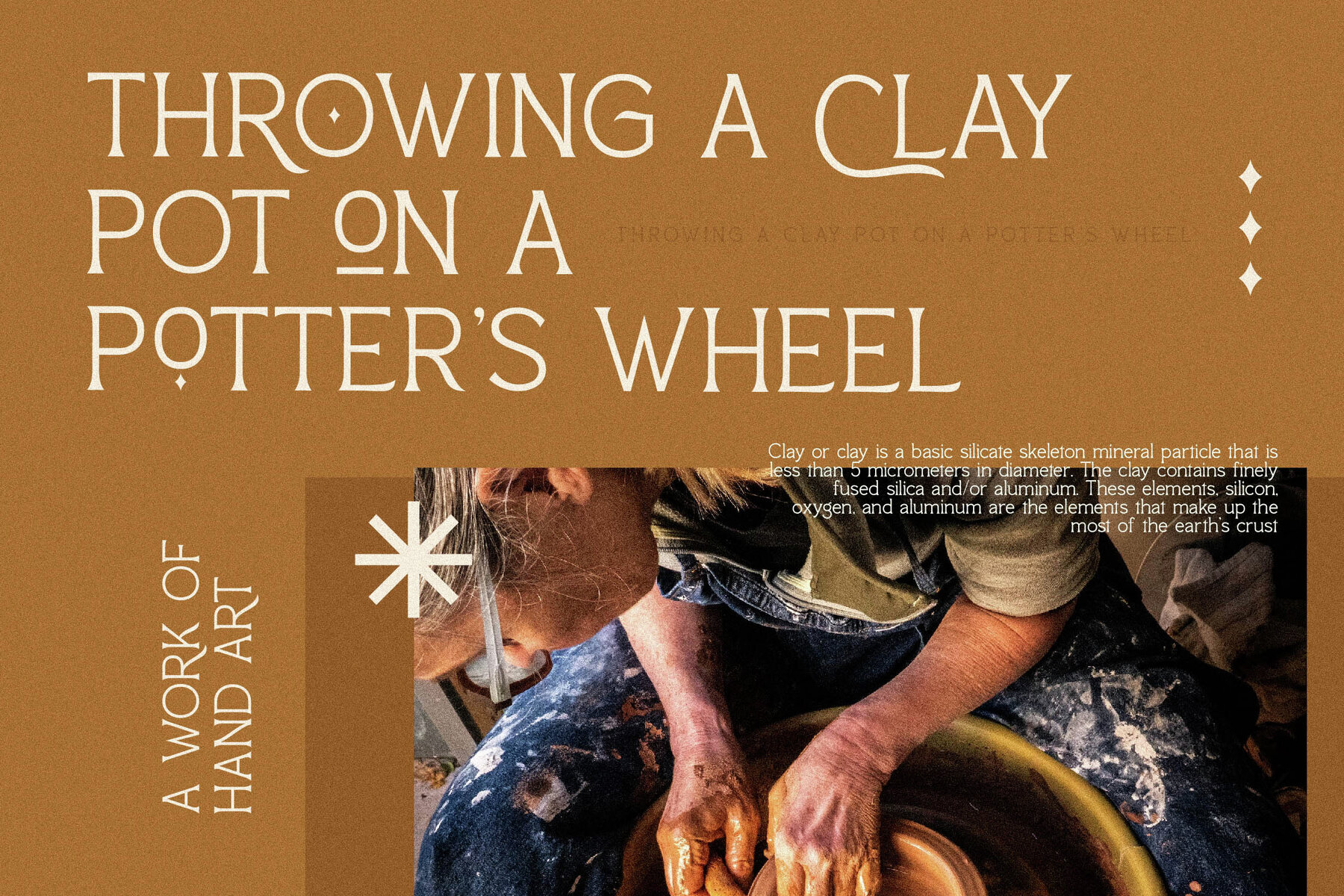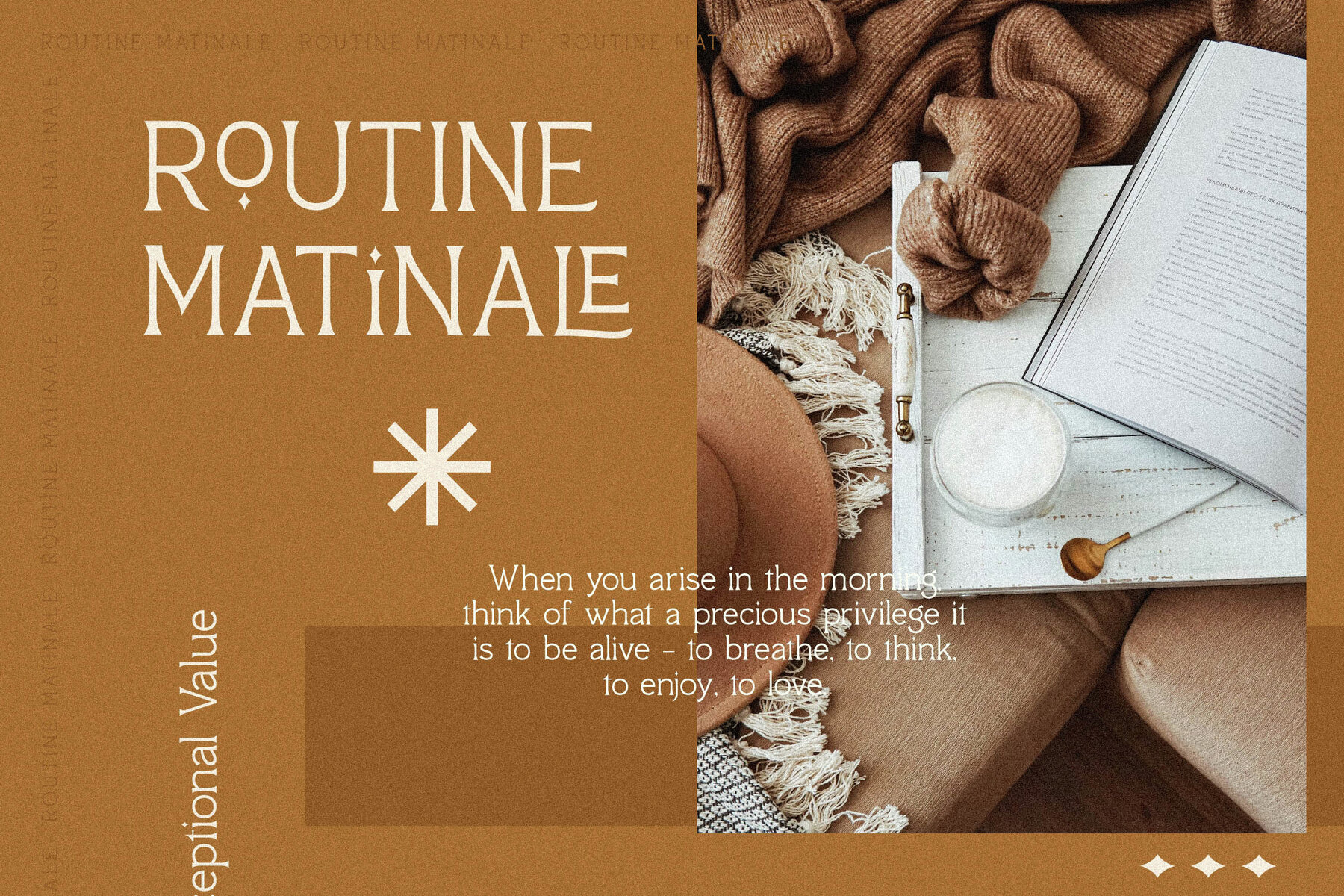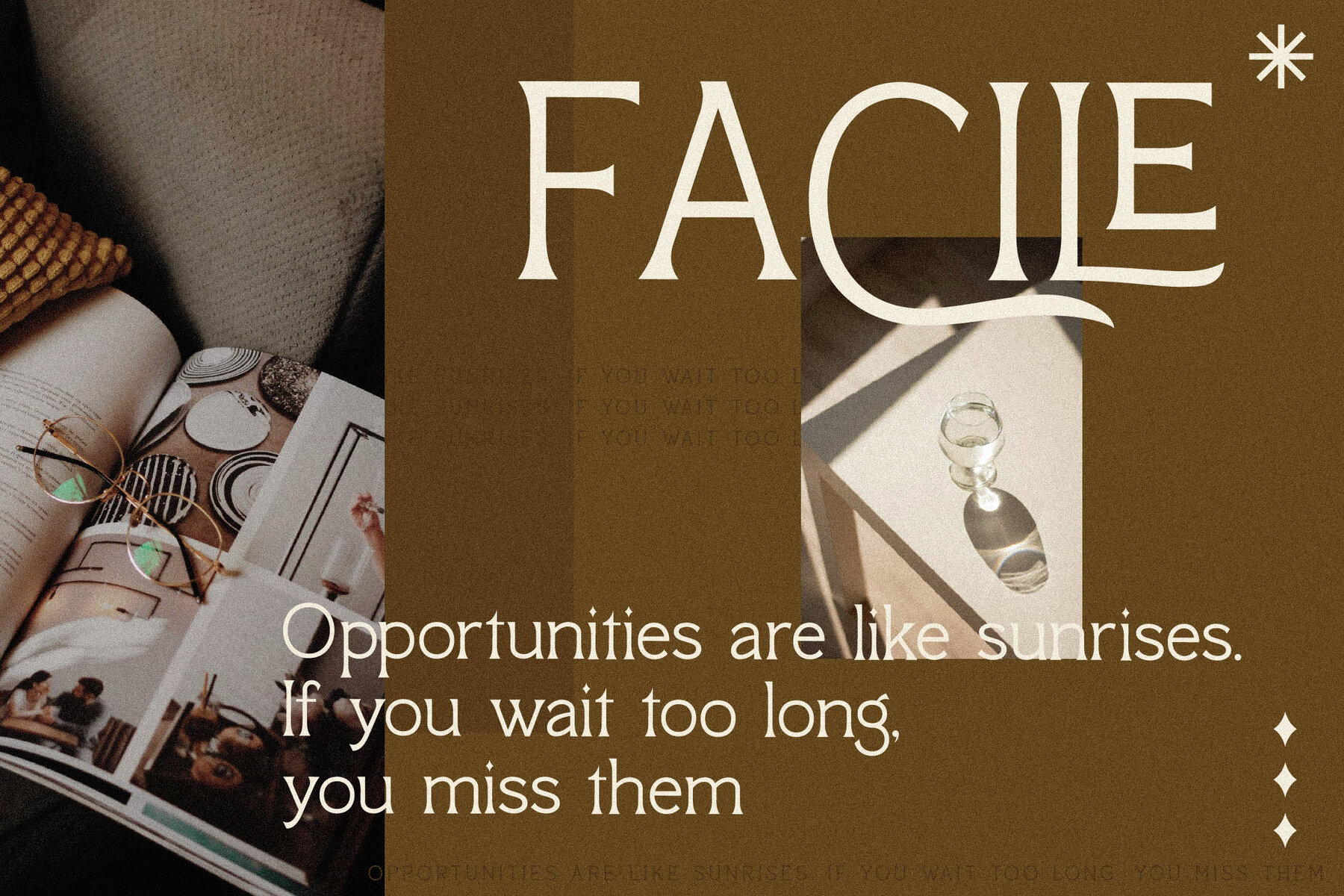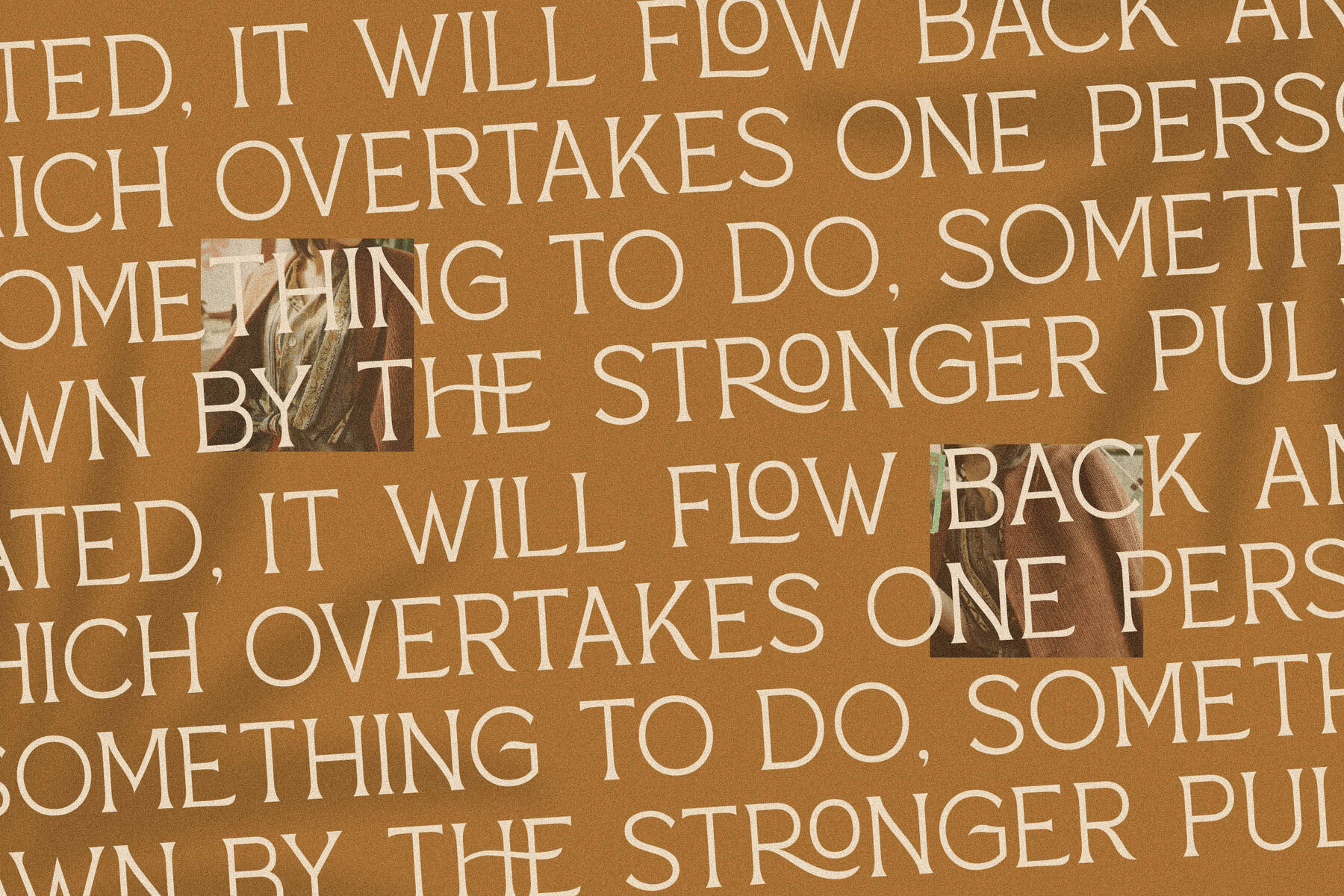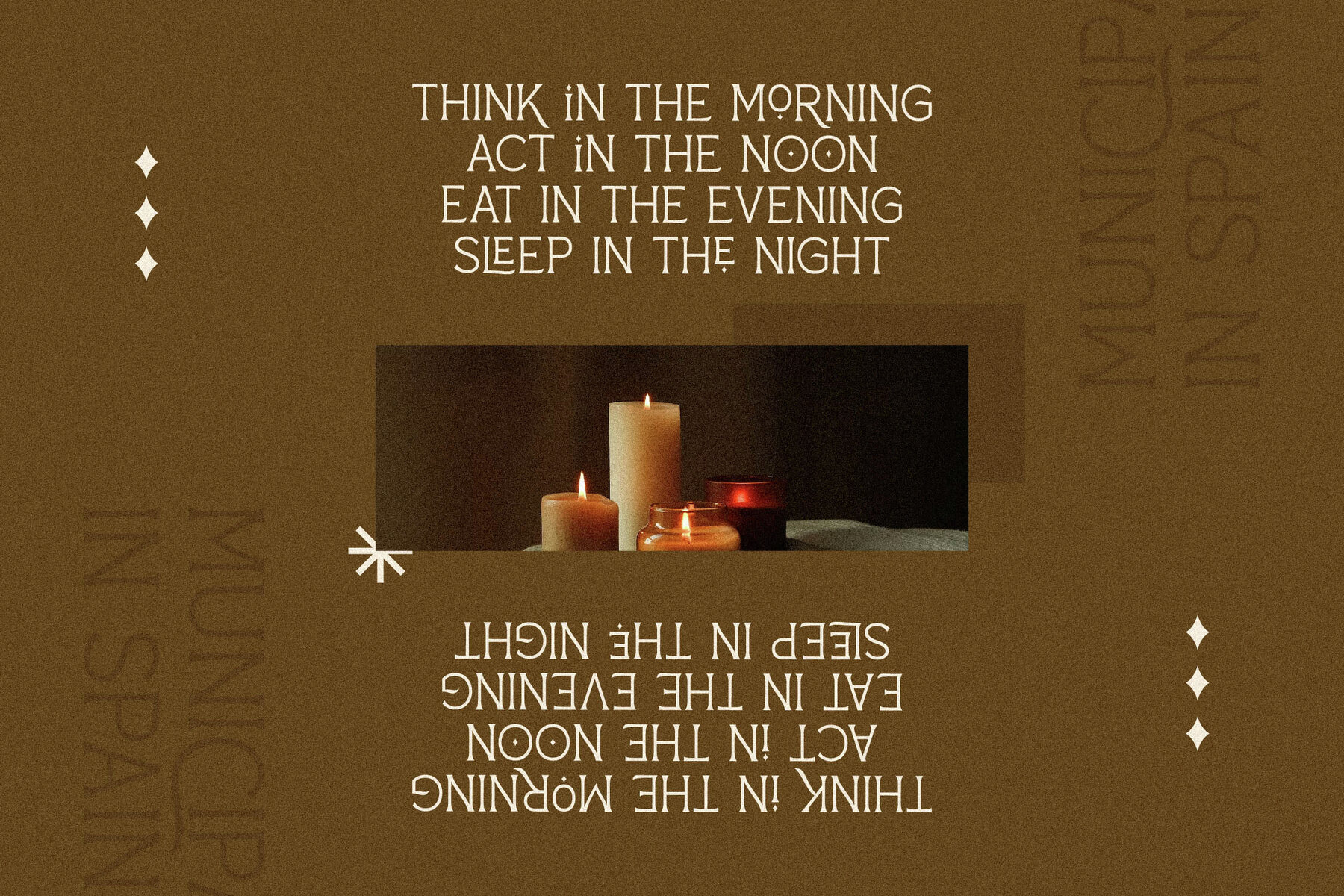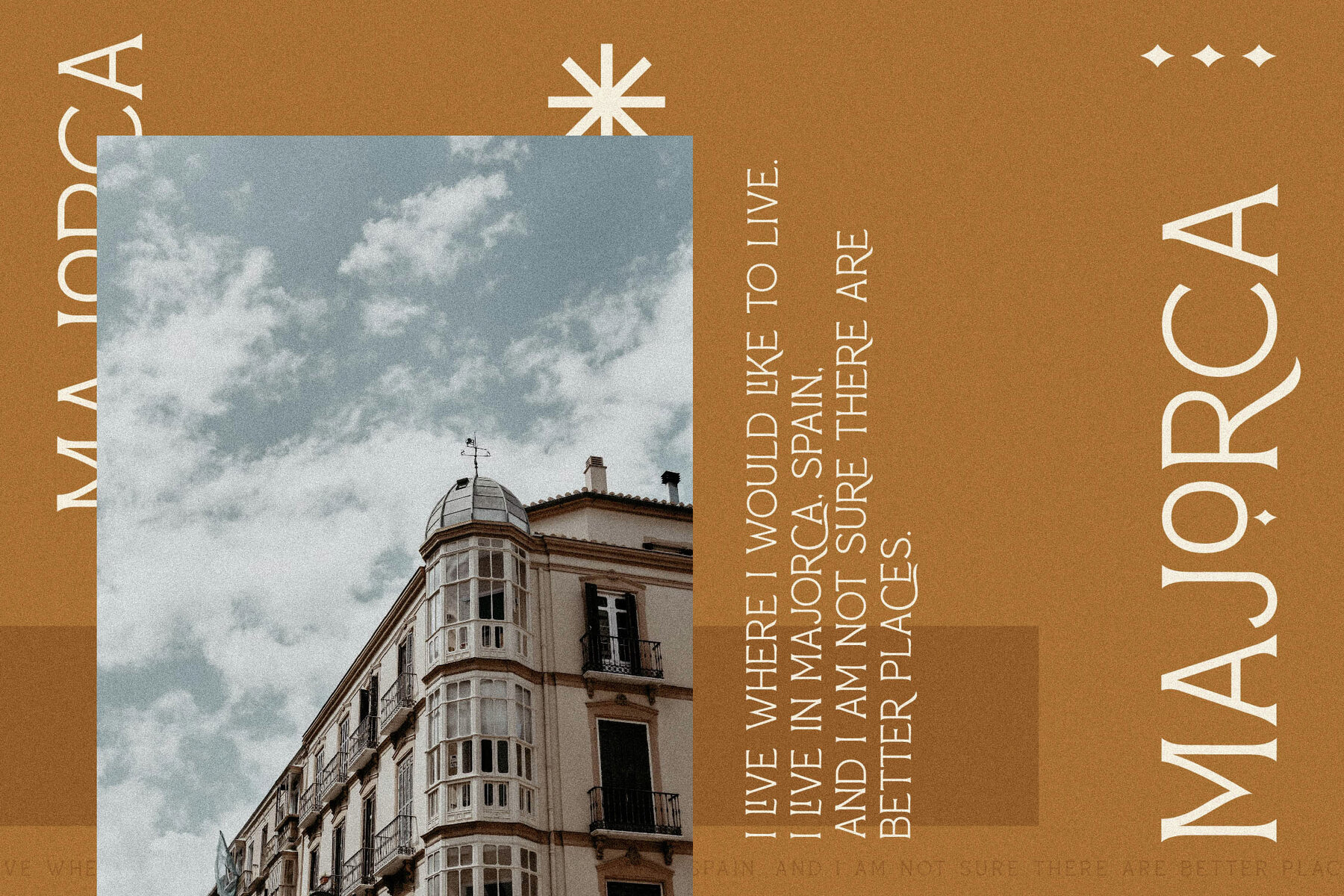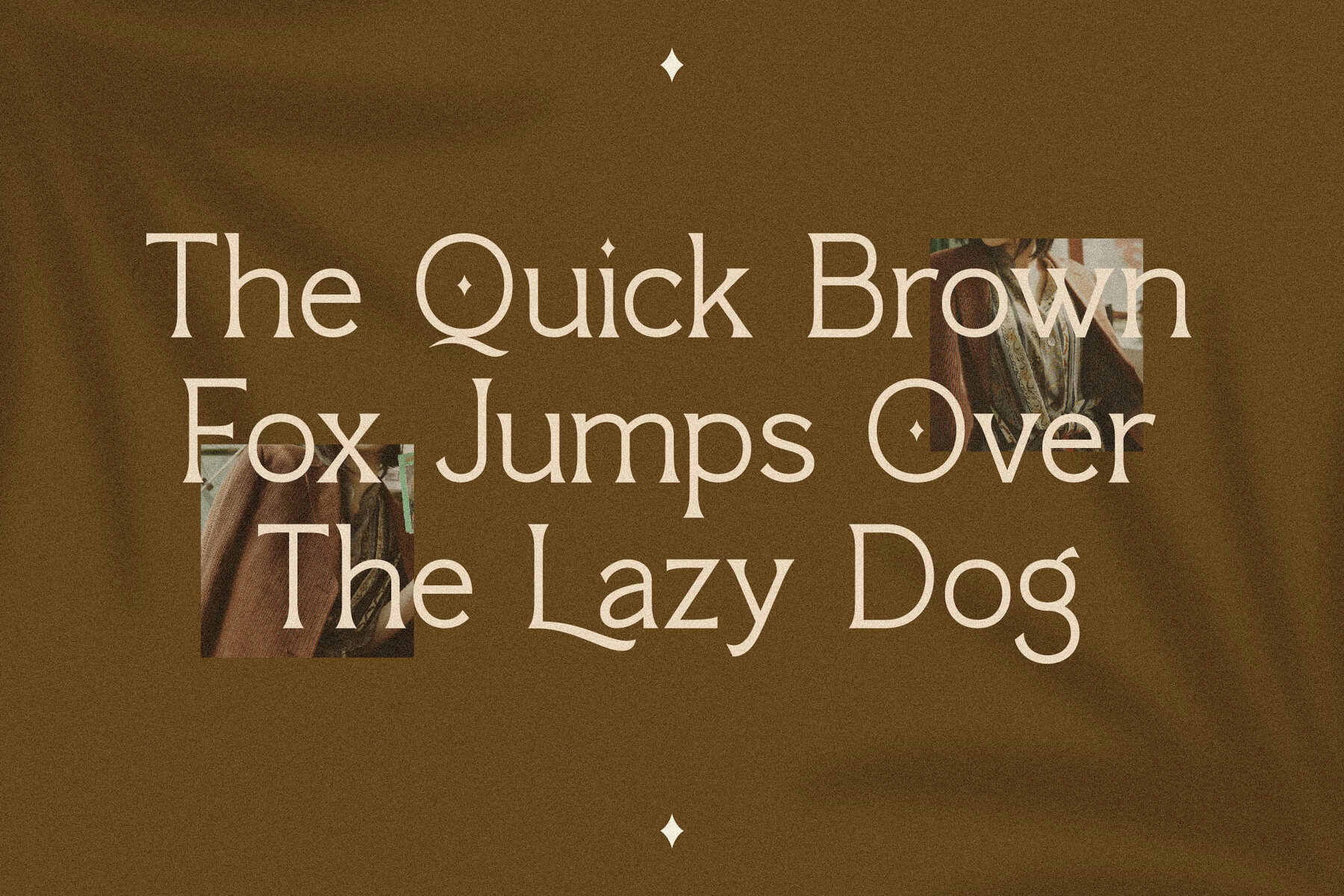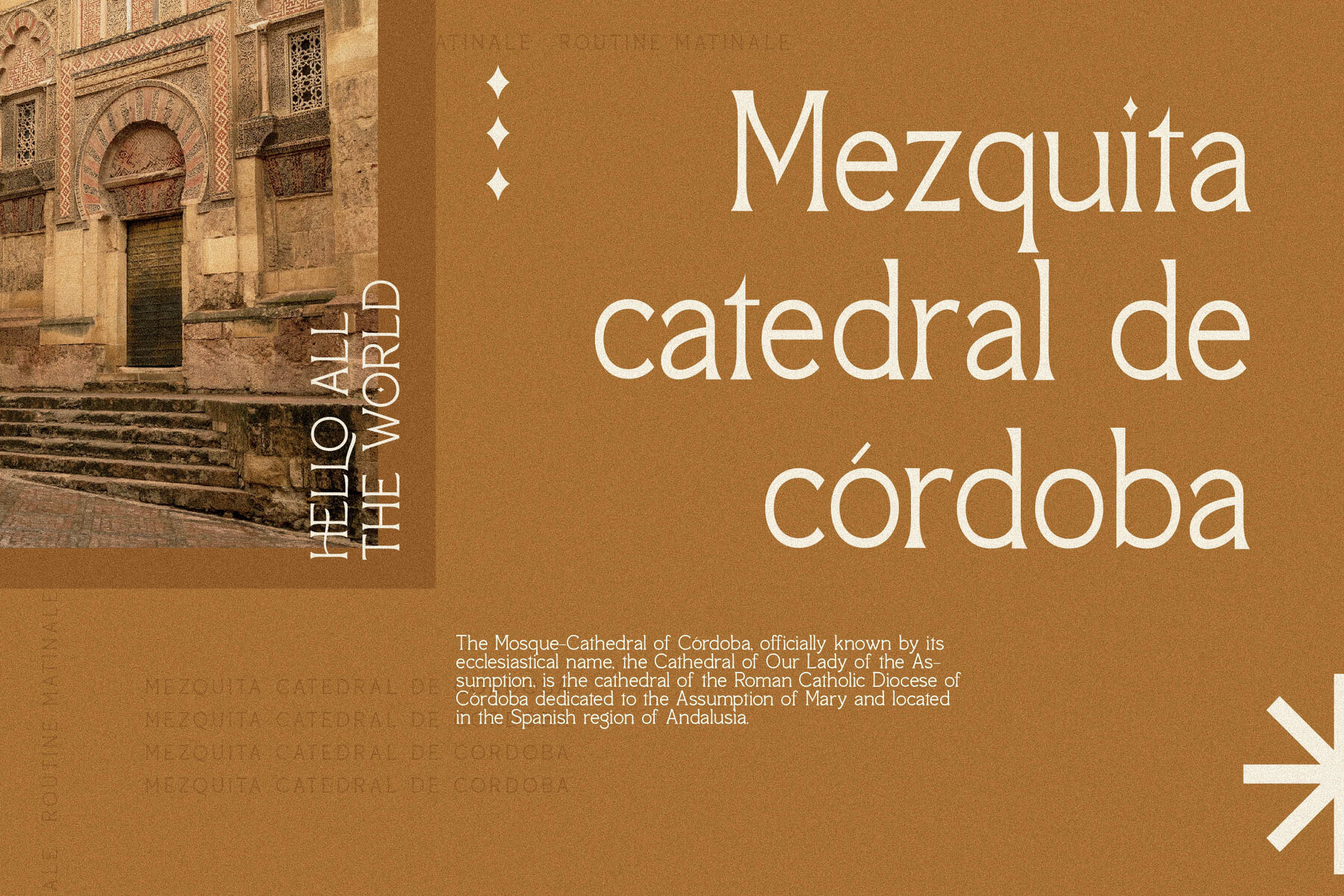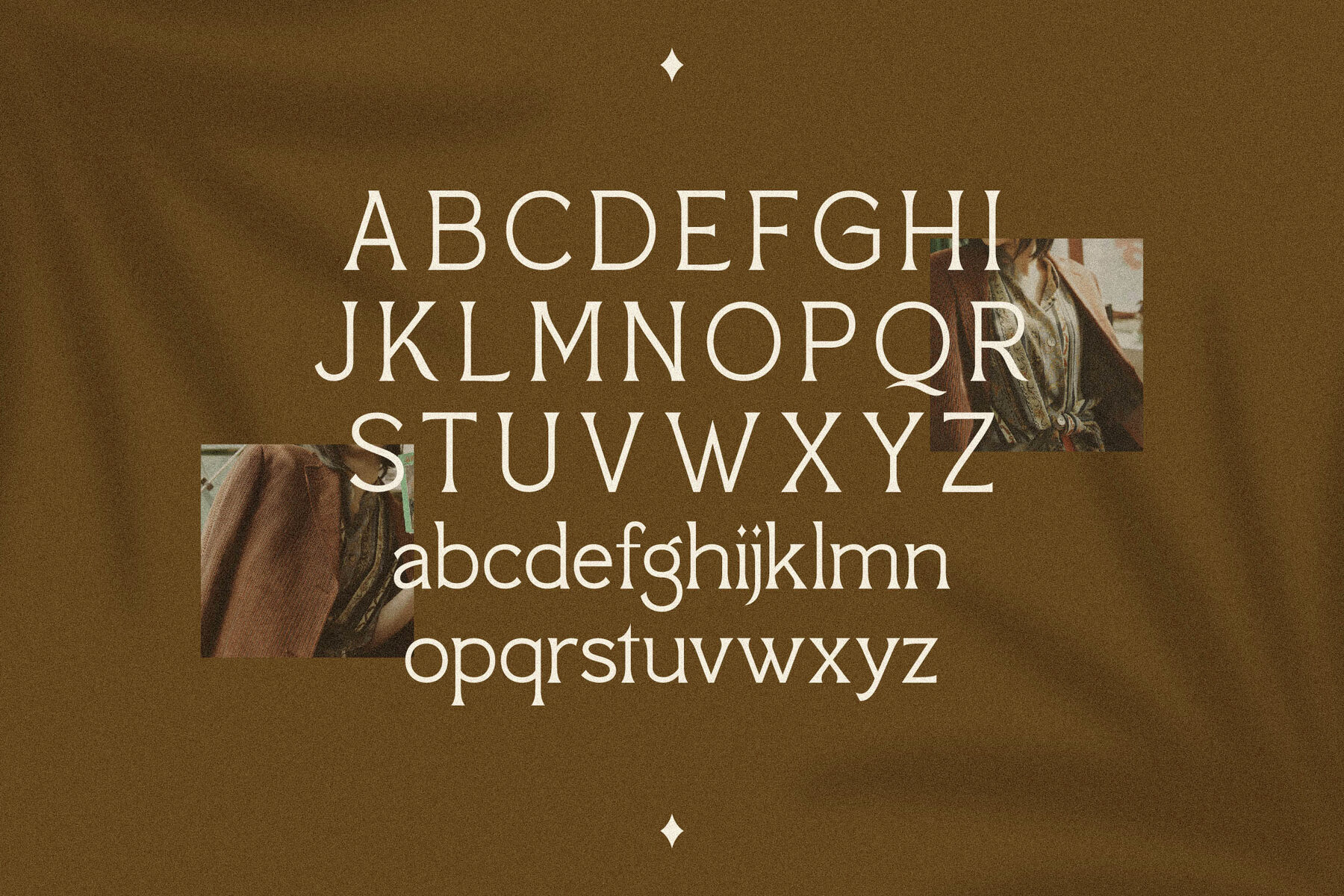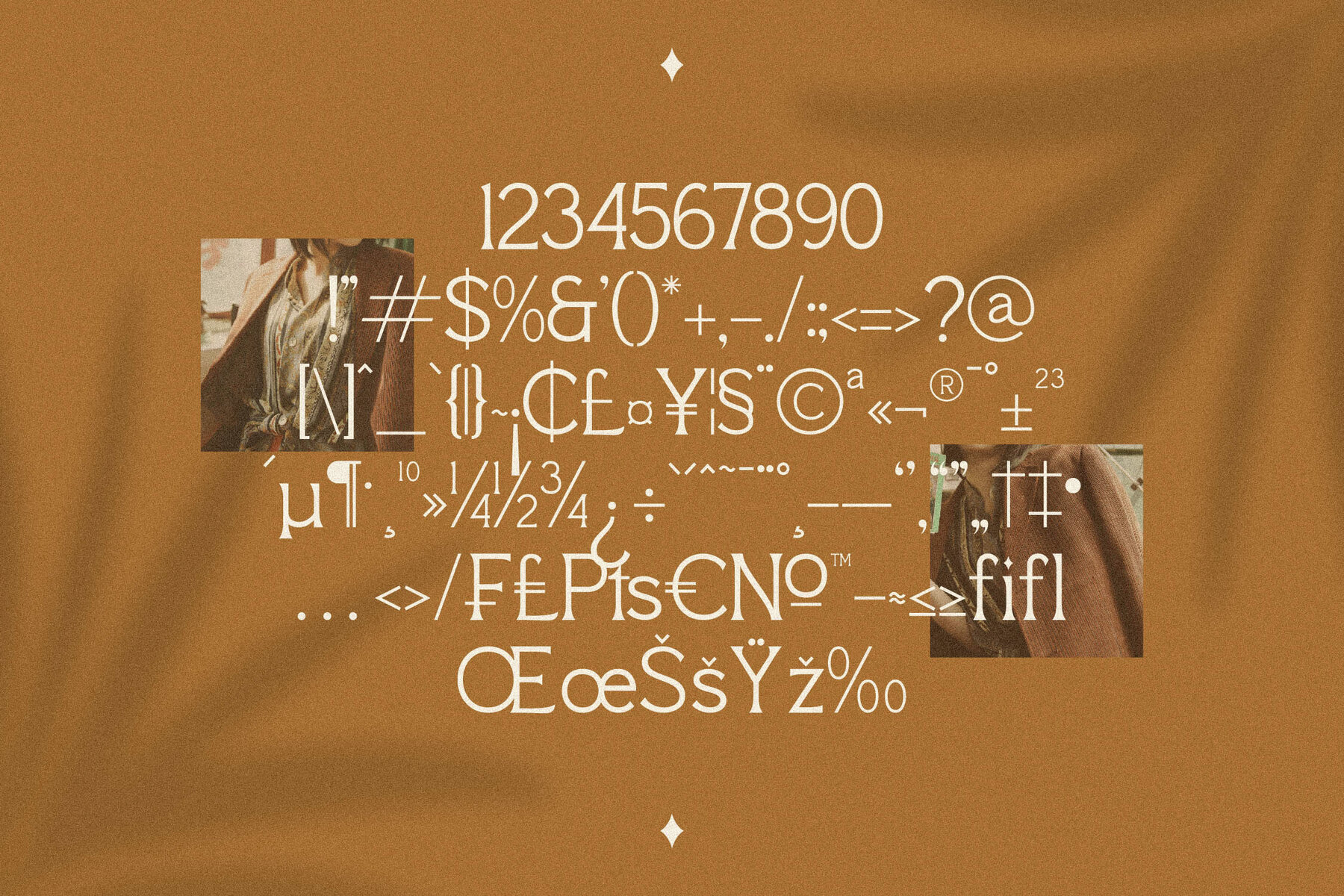
QUMORU GENOCHI Font
Introducing the QUMORU GENOCHI Typeface, a unique serif font with a seamless blend of modern and classic styles. This typeface by Storytype Studio perfectly suits elegant and luxurious logos, titles for books and movies, and enhancing fashion brands and magazines. Whether you're designing for clothing, crafting quotes, or working on other creative projects, QUMORU GENOCHI adds a refined touch to your work.QUMORU GENOCHI Typeface